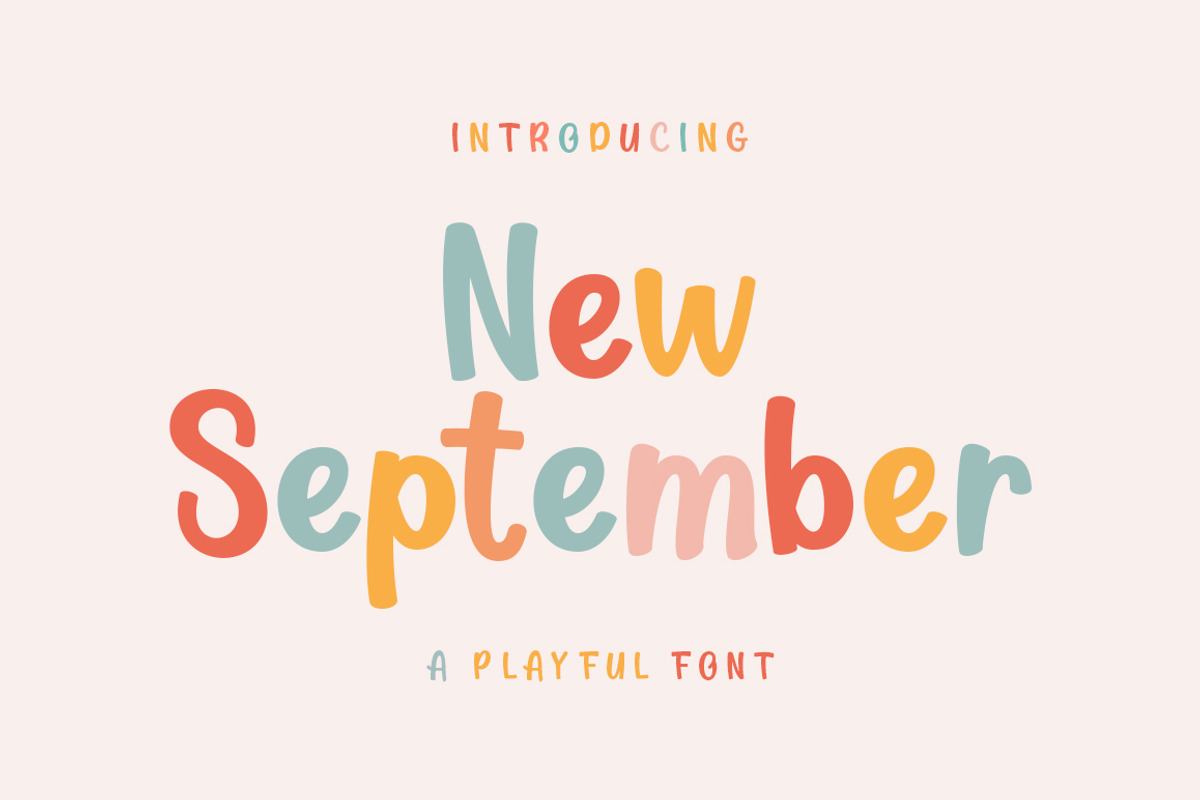
Please note, you must purchase this font for commercial use. However, you can easily download New September Font Free Download for personal use and testing purposes. New September Font is a modern and stylish typeface with a unique and elegant design. Perfect for a wide range of projects such as branding, logos, invitations, and creative designs, this font adds sophistication and personality to your typography. Whether you're working on a chic wedding invitation, a modern logo, or stylish promotional material, New September Font Free Download will bring a fresh, professional look to your project. Download New September Font Free Download today and explore its full potential before opting for a commercial license.